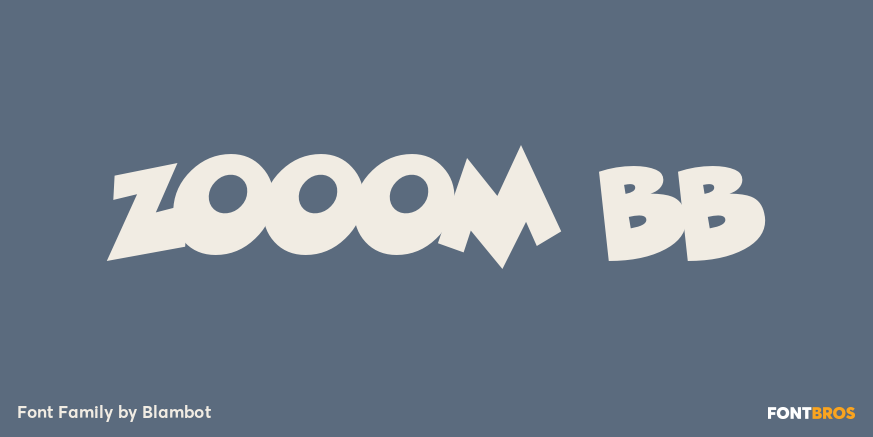
Zooom BB
About Zooom BB
Designed with comedy in mind, ZOOOM is a chunky comic book sound effects font with personality! But it doesn\’t end there! ZOOOM would look great on everything from birthday invitations to packaging for toys! For added wackiness, the uppercase characters…